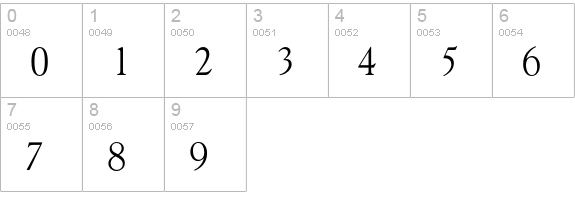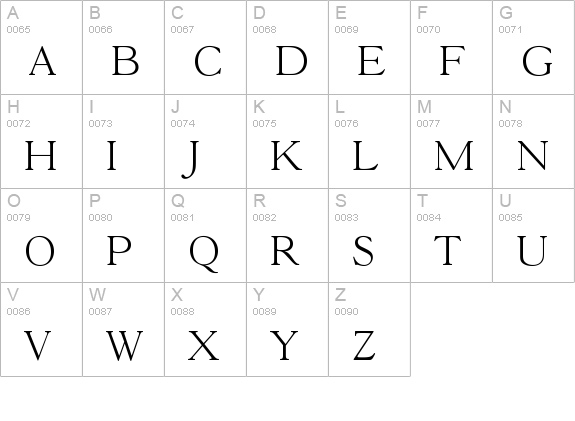
Gascogne-Xlight Font Details
Gascogne-Xlight font boasts a delicate and elegant design that exudes sophistication and modernity. Its slim and stylish letterforms make it perfect for a wide range of design projects, from branding to editorial design. The soft curves and crisp lines of this font create a harmonious balance that is both eye-catching and easy to read. Gascogne-Xlight is a versatile typeface that can be used for both headings and body text, adding a touch of refinement to any project. What's even better is that Gascogne-Xlight is available for free download at FontsMarket.com. This means that you can easily access this stunning font and incorporate it into your designs without any cost. Whether you are a professional designer or a hobbyist, Gascogne-Xlight is a valuable addition to your font collection. Don't miss the opportunity to enhance your projects with this beautiful and free typeface.